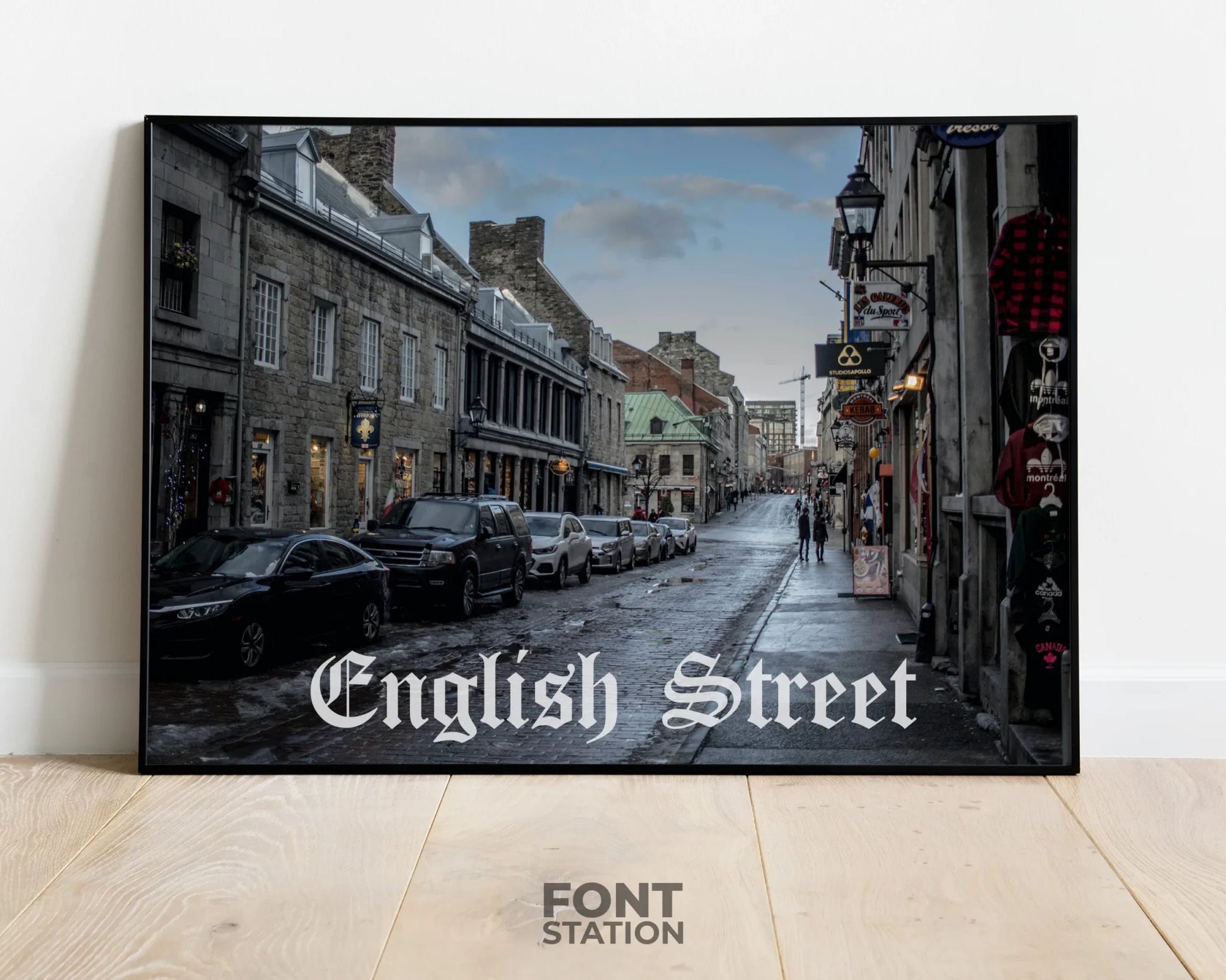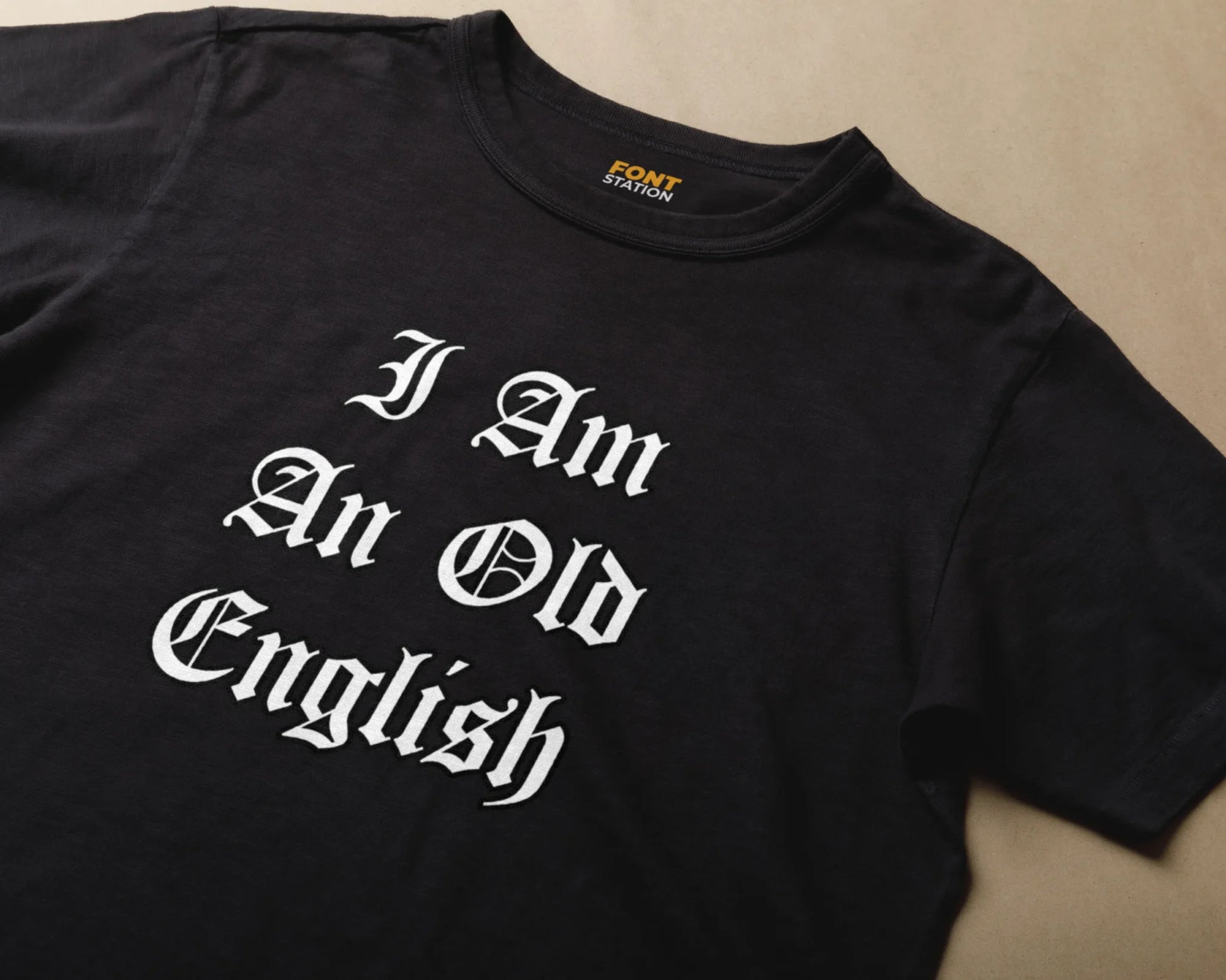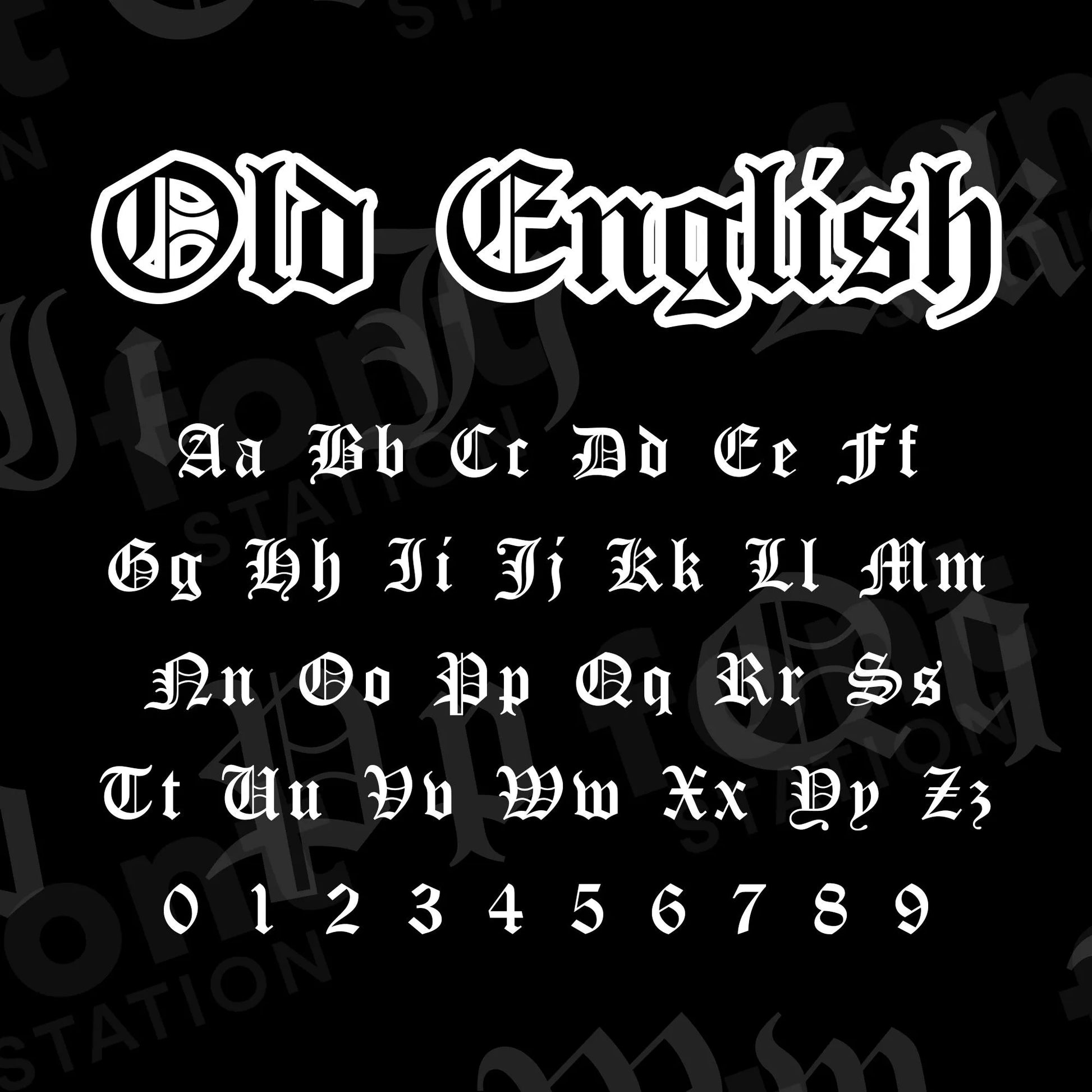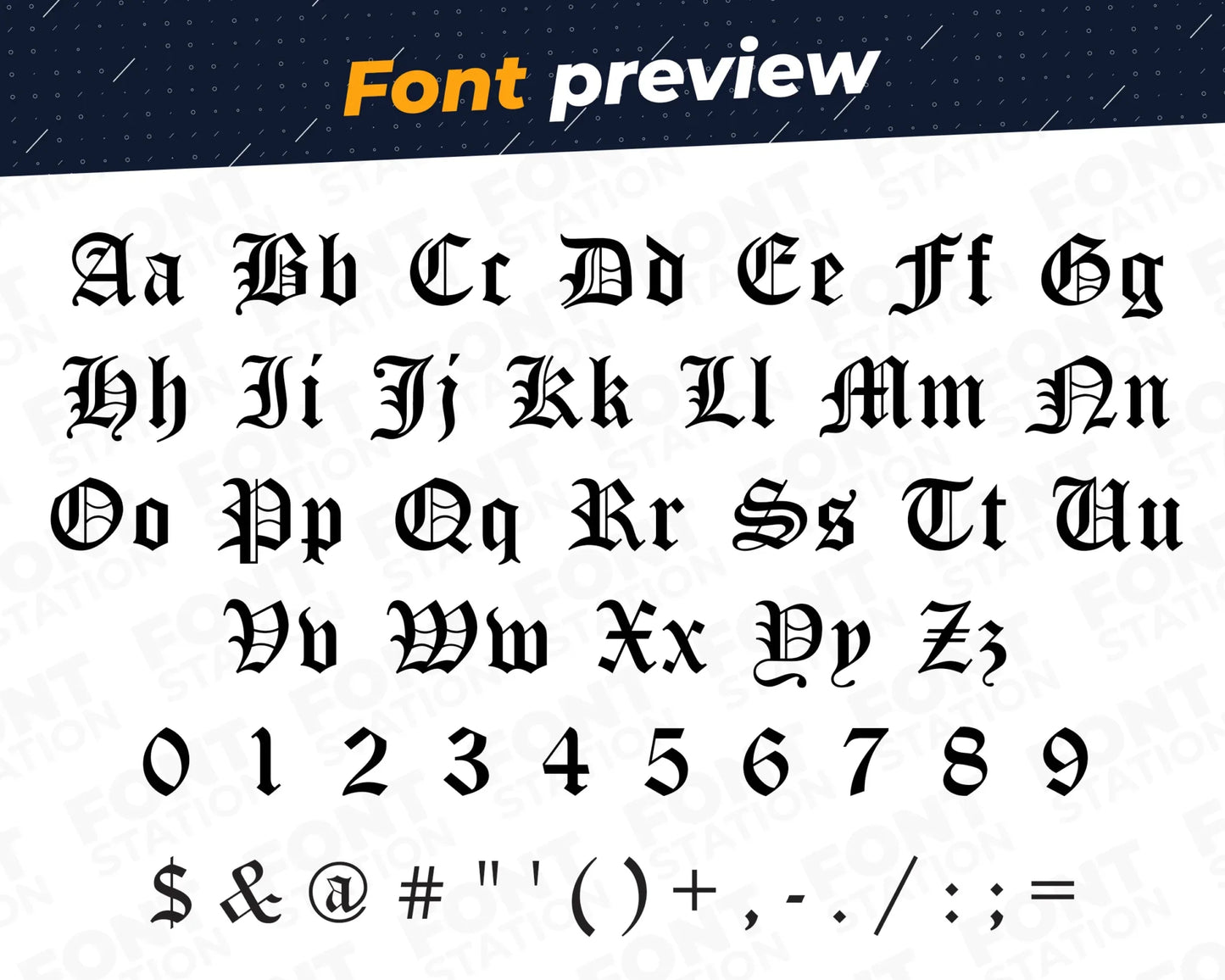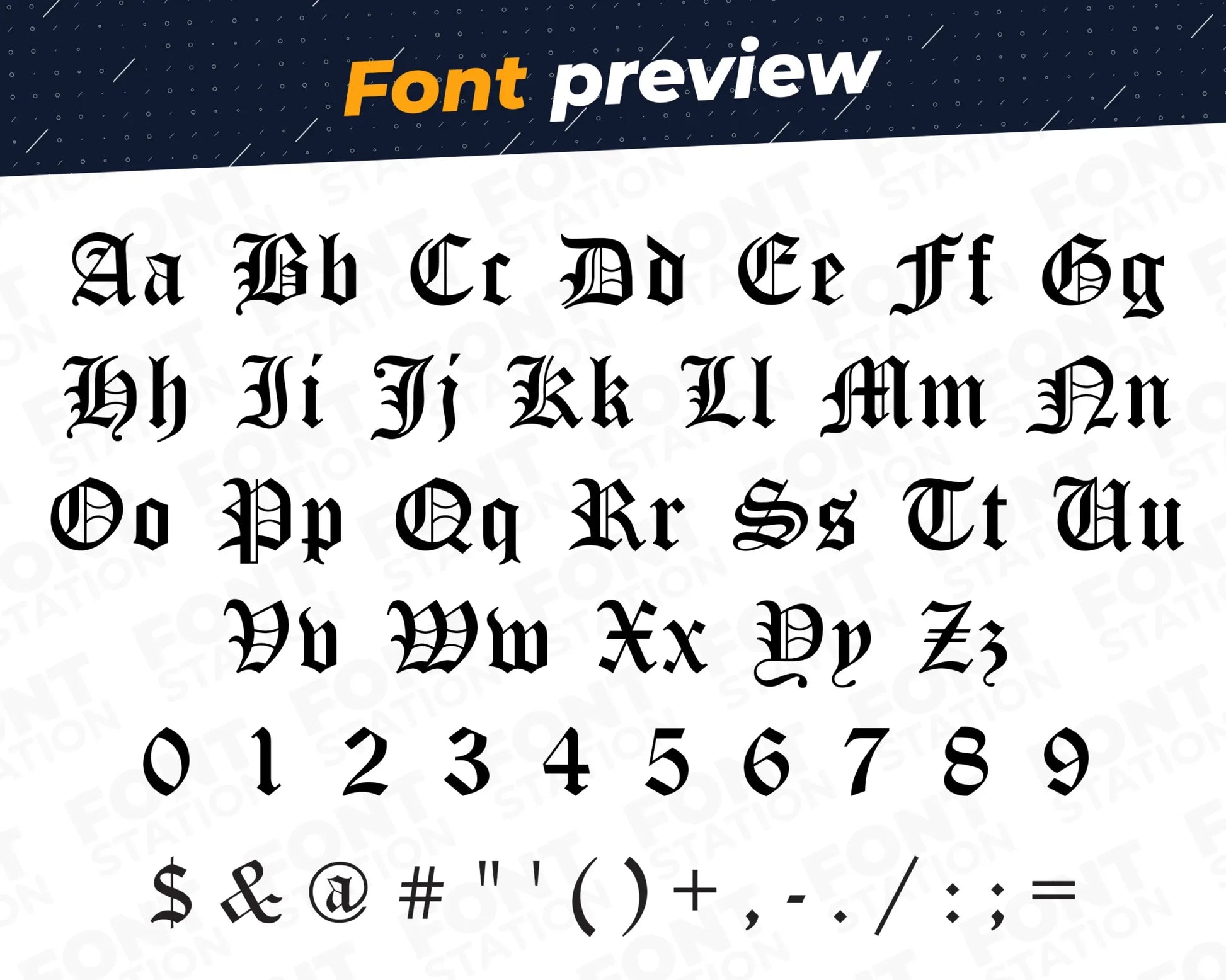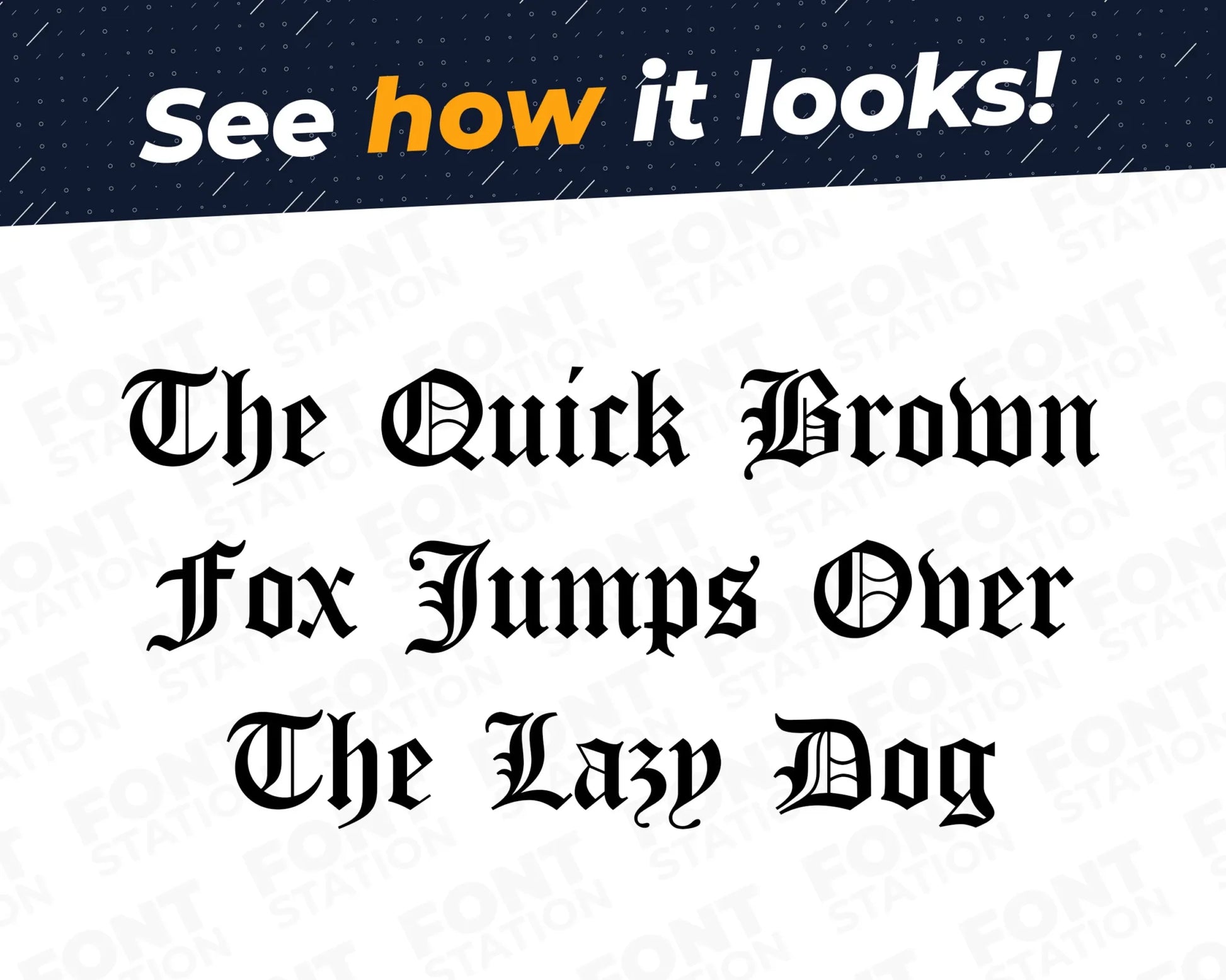
Old English Font - Blackletter Font
Our Gothic Blackletter typeface, inspired from Old English font
Grab your computer, tablet or other device and start creating right now with our Old English font letters! Our Gothic Blackletter typography is inspired from Old English font, making it ideal for various digital creations (logo, word...), sublimation, cake toppers, stickers, event decorations, and more.